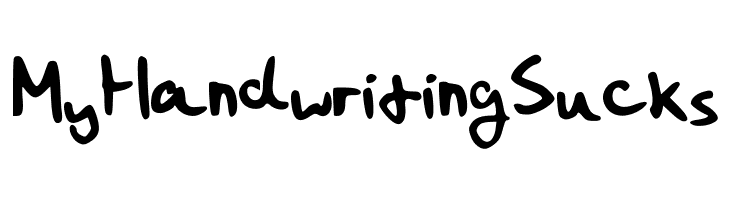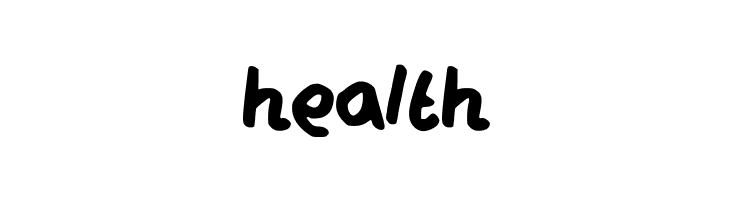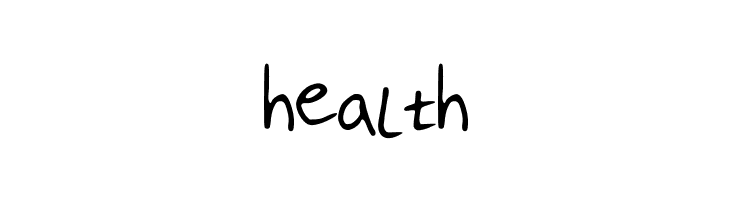
A playful, bold font with a hand-drawn, whimsical style.
A casual, handwritten-style font with smooth, rounded strokes.
A sketch-like, hand-drawn font with overlapping strokes and a playful style.